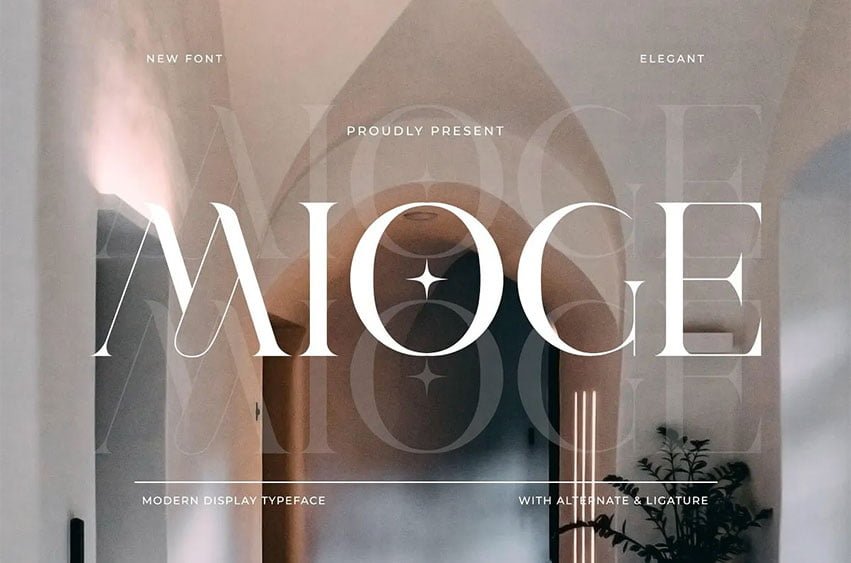
Mioge Font is a modern display font. Elegantly crafted and easily matched to an incredibly large set of projects. Use this font to achieve an exquisite, yet subtle look and maximum versatility.